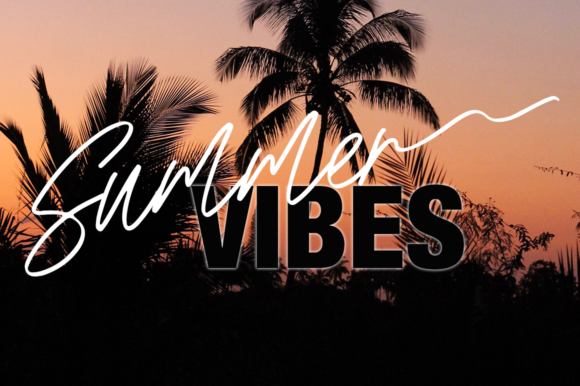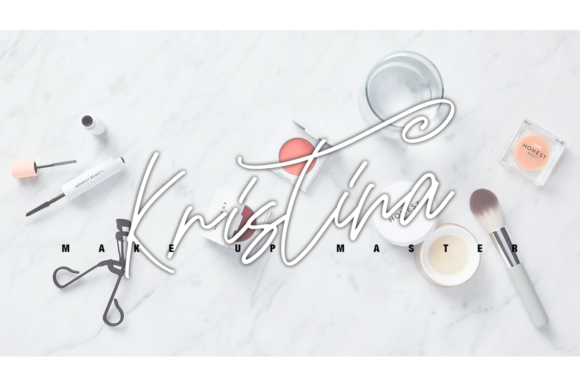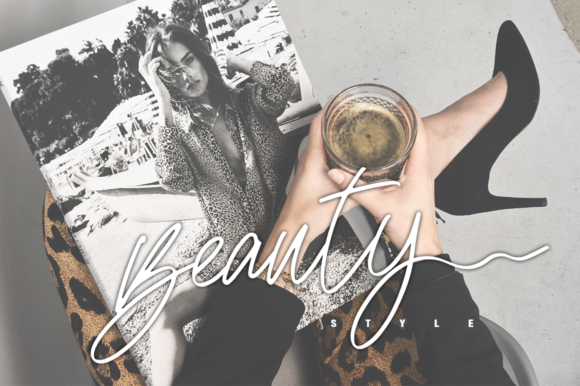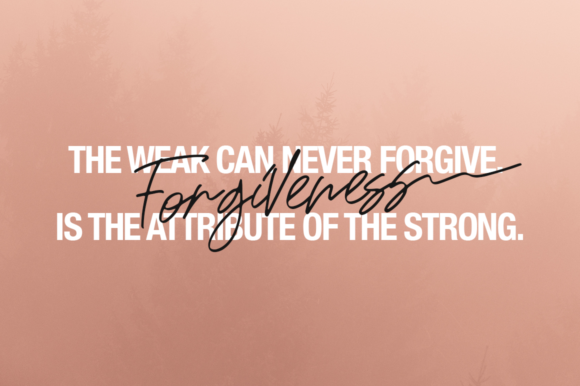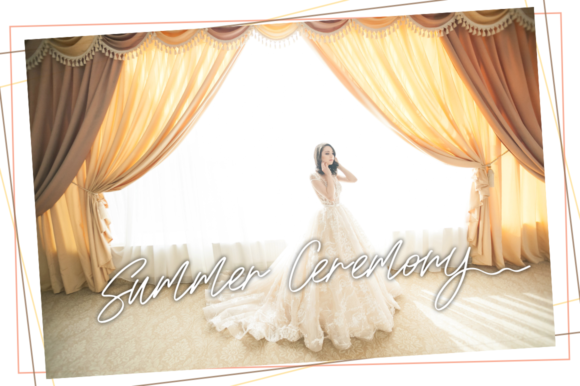
Introduction to Bangin Font
Inspired by tropical palm trees and neon street signs, Banging is a smooth and charming script with a slightly vintage touch.
Key Features of Bangin Font